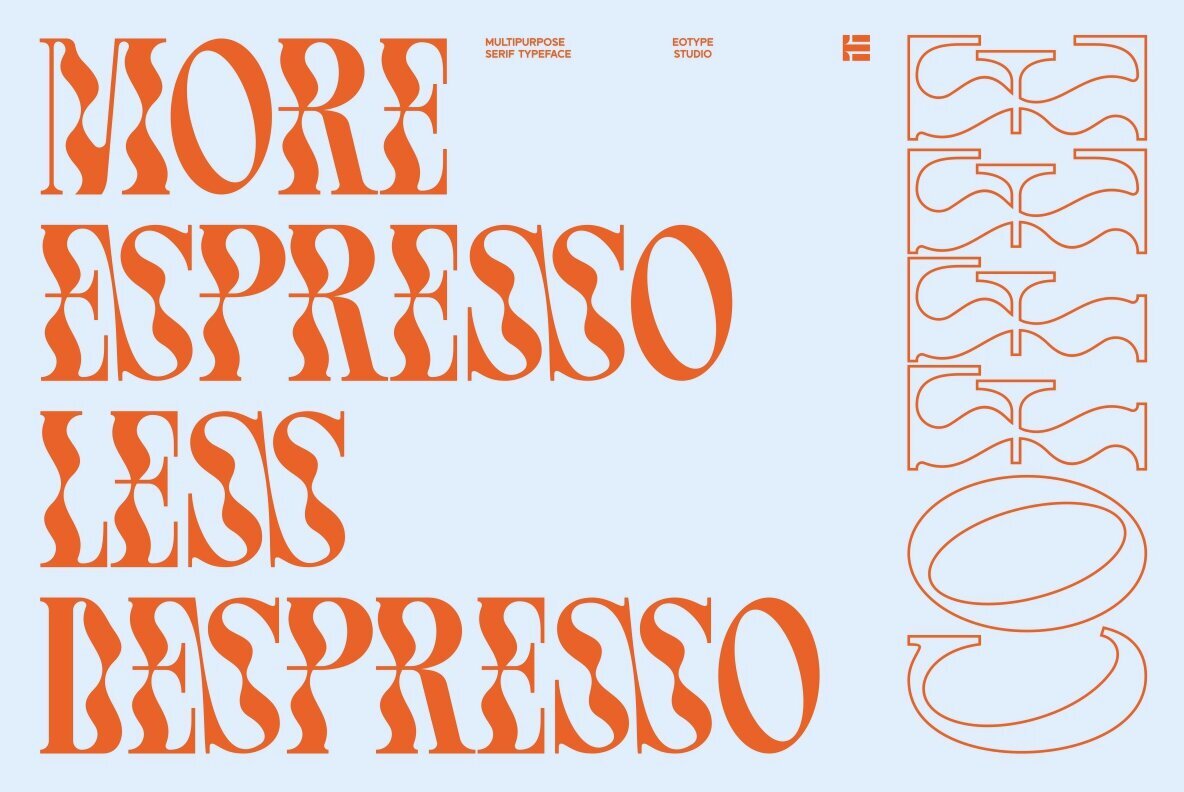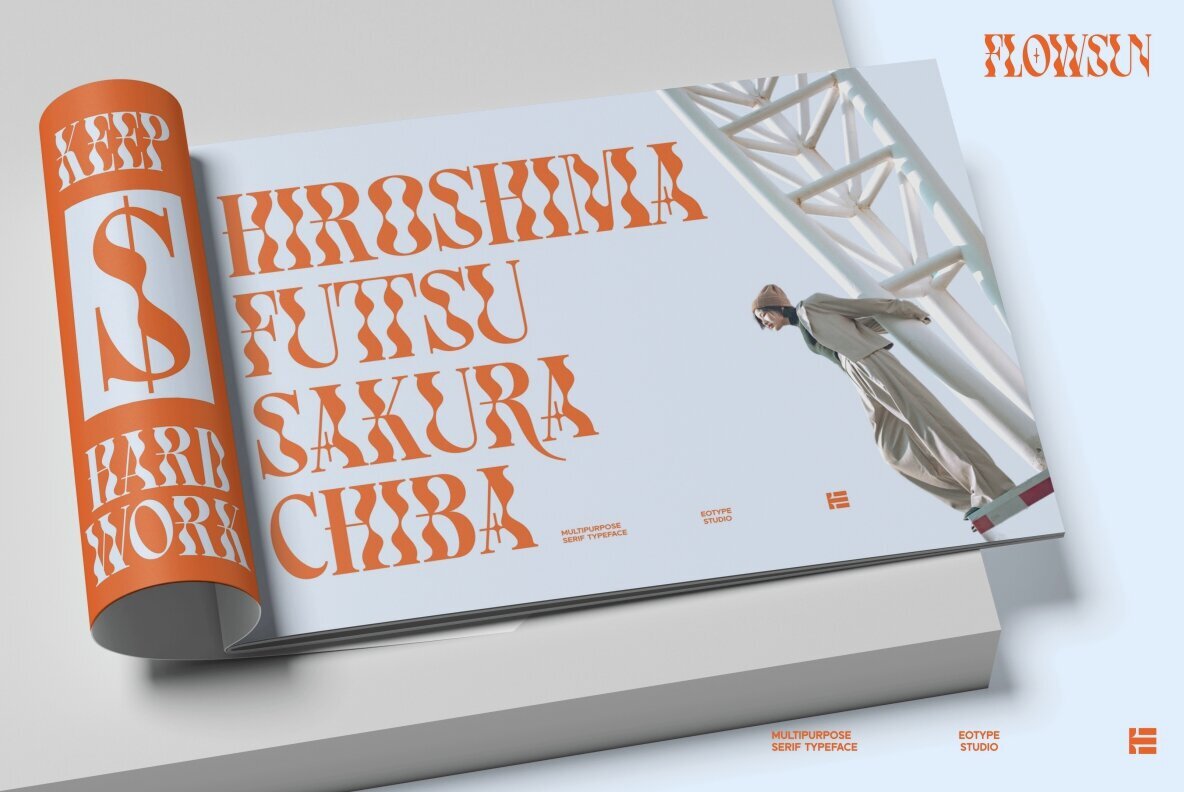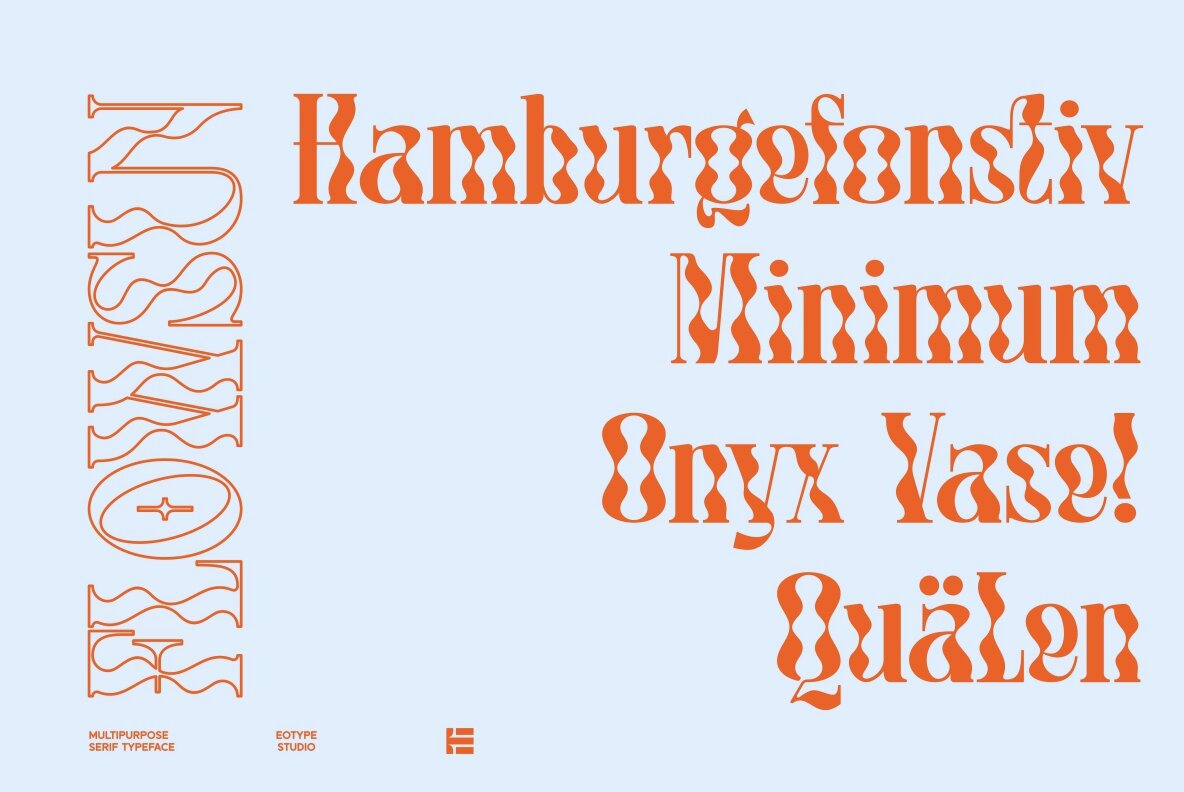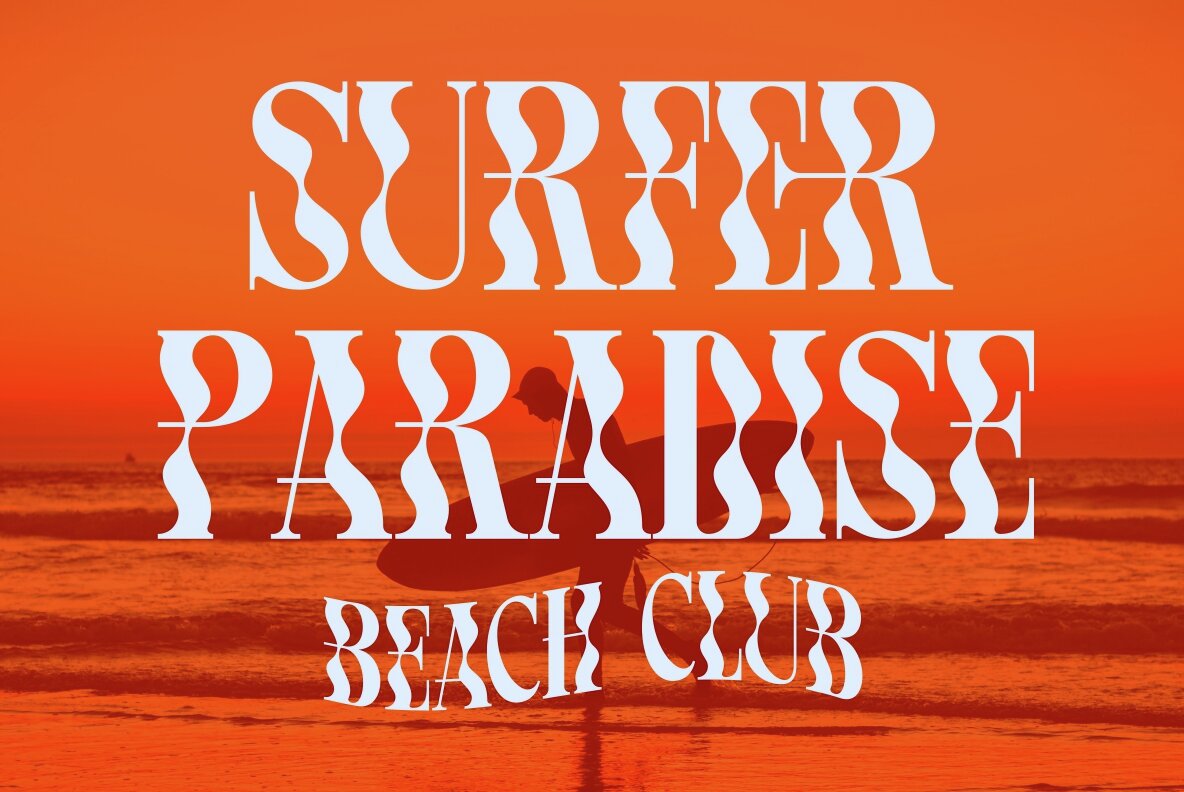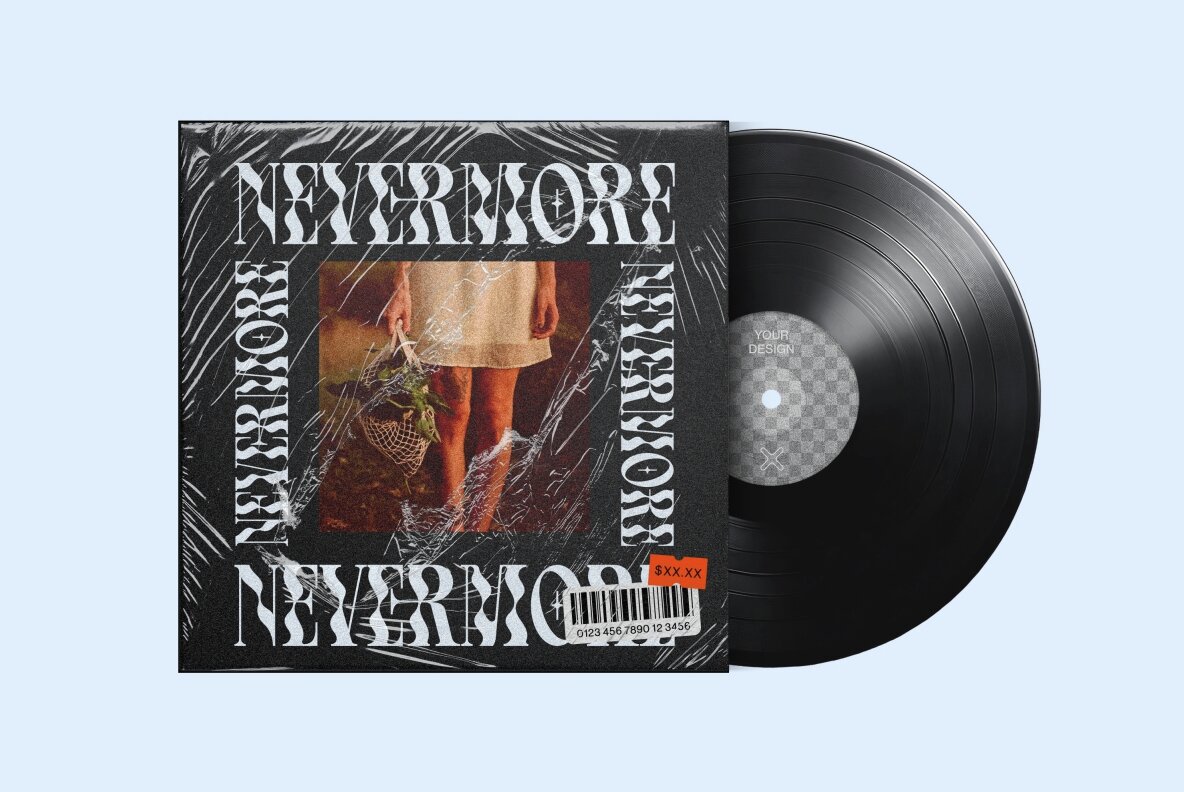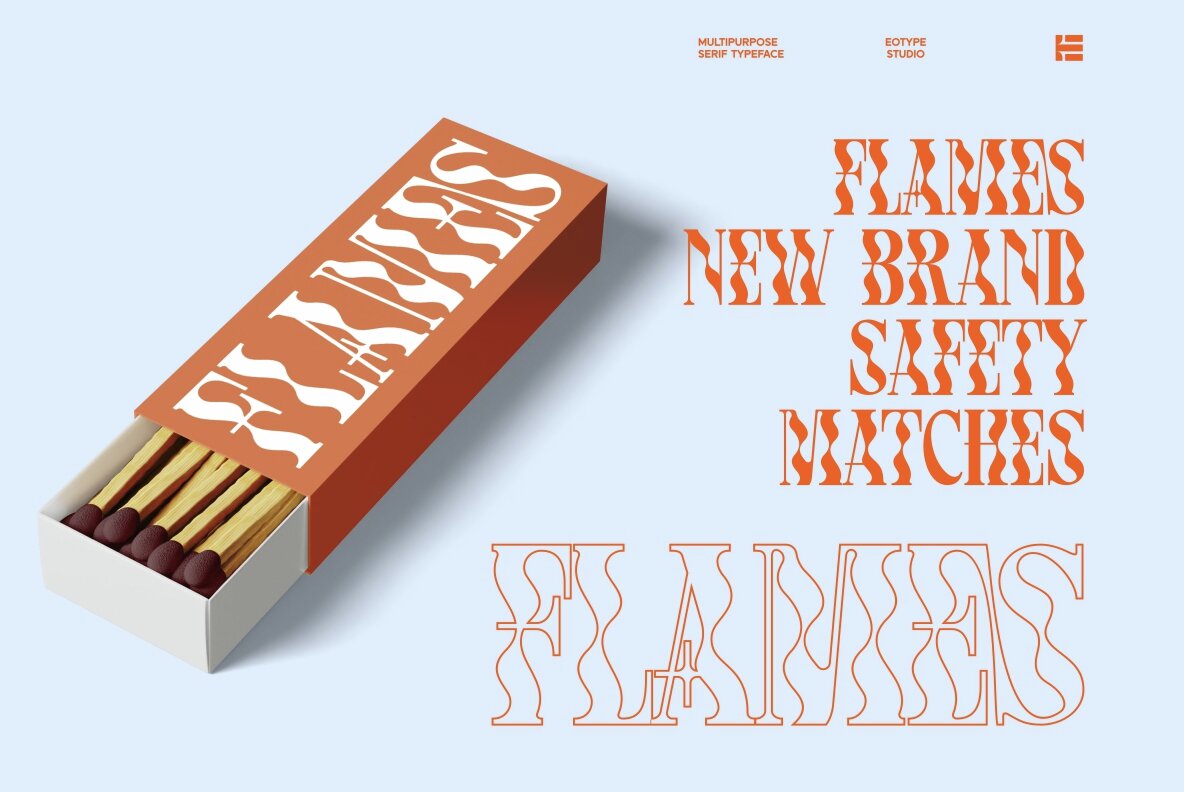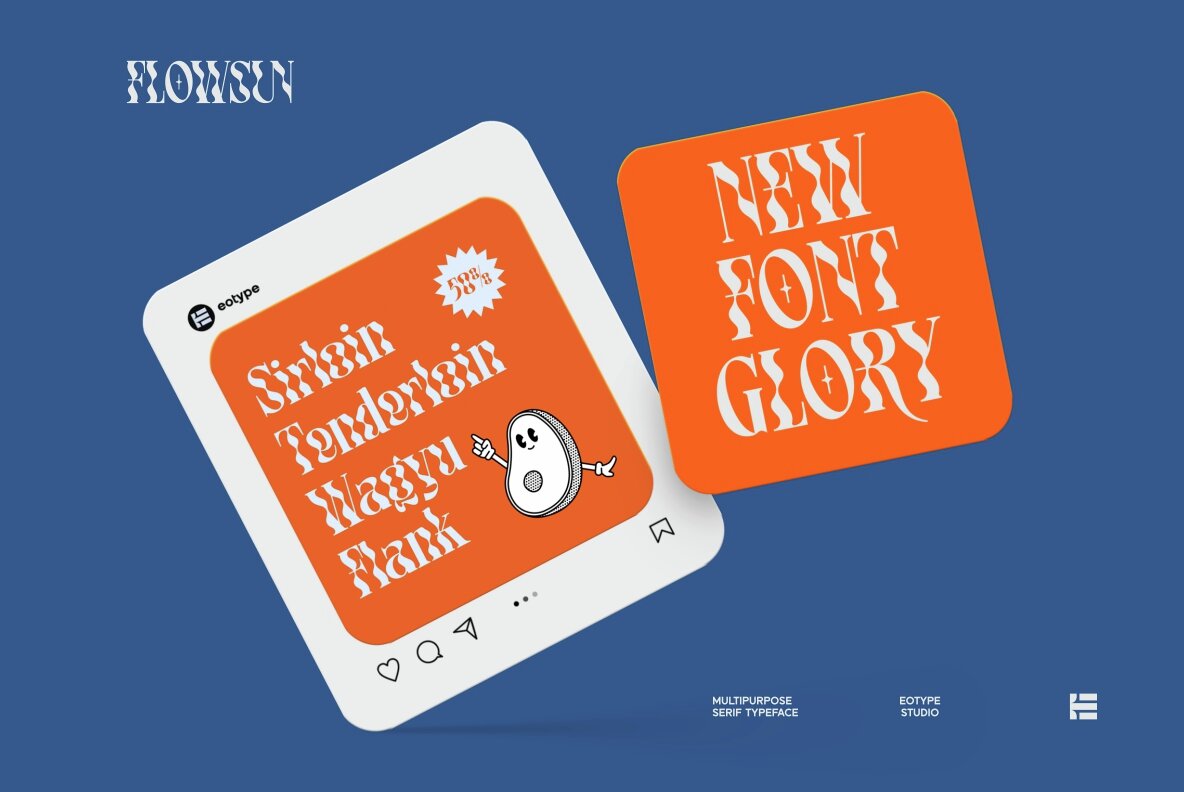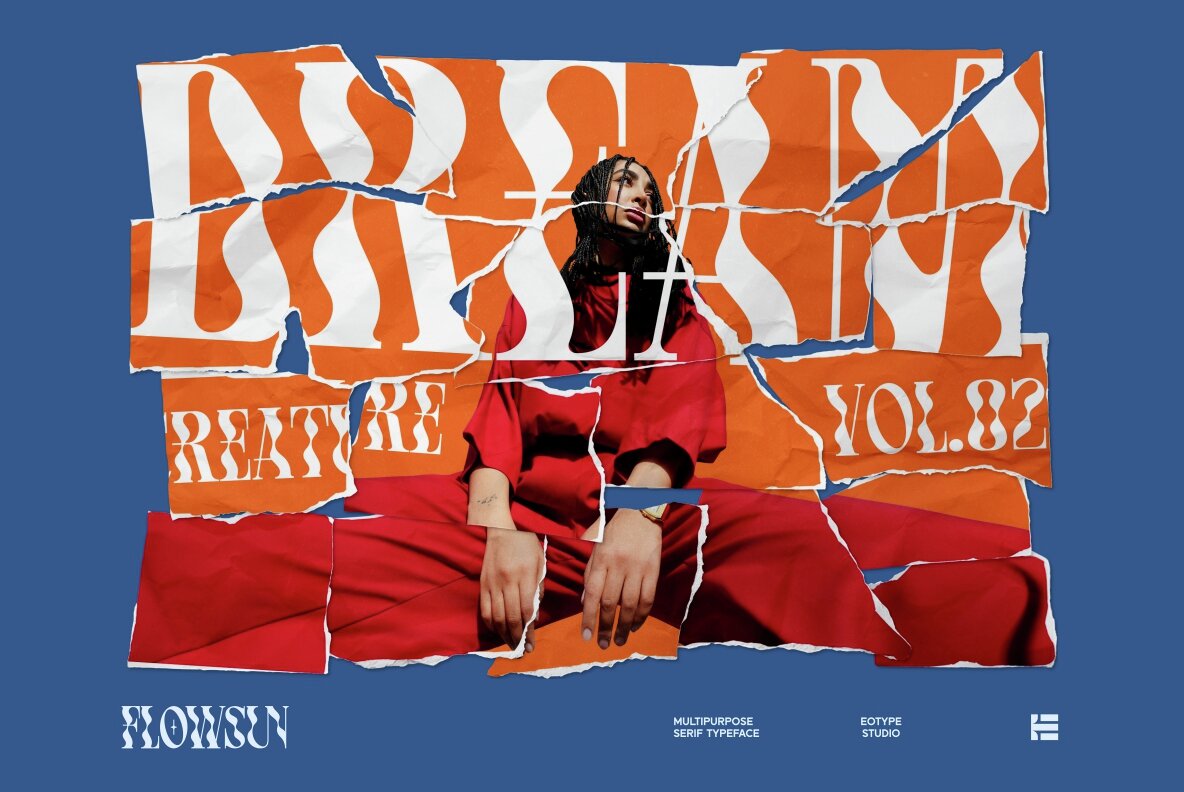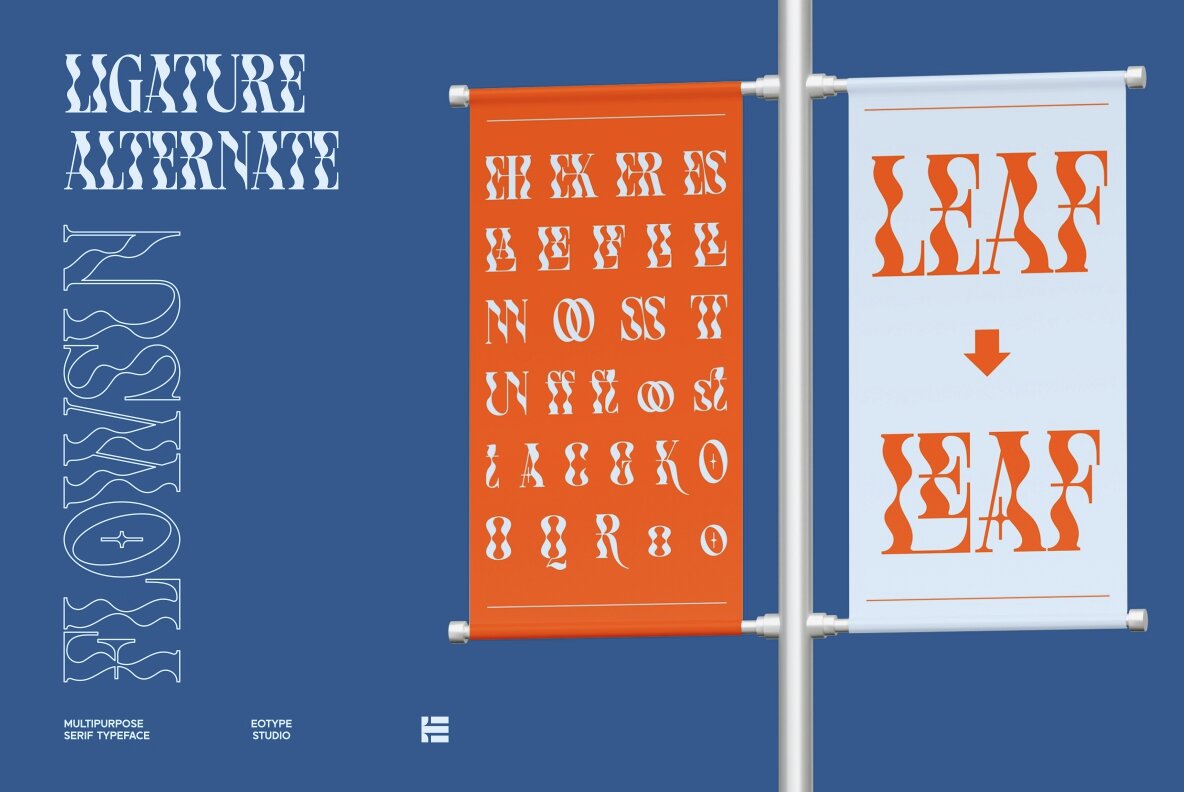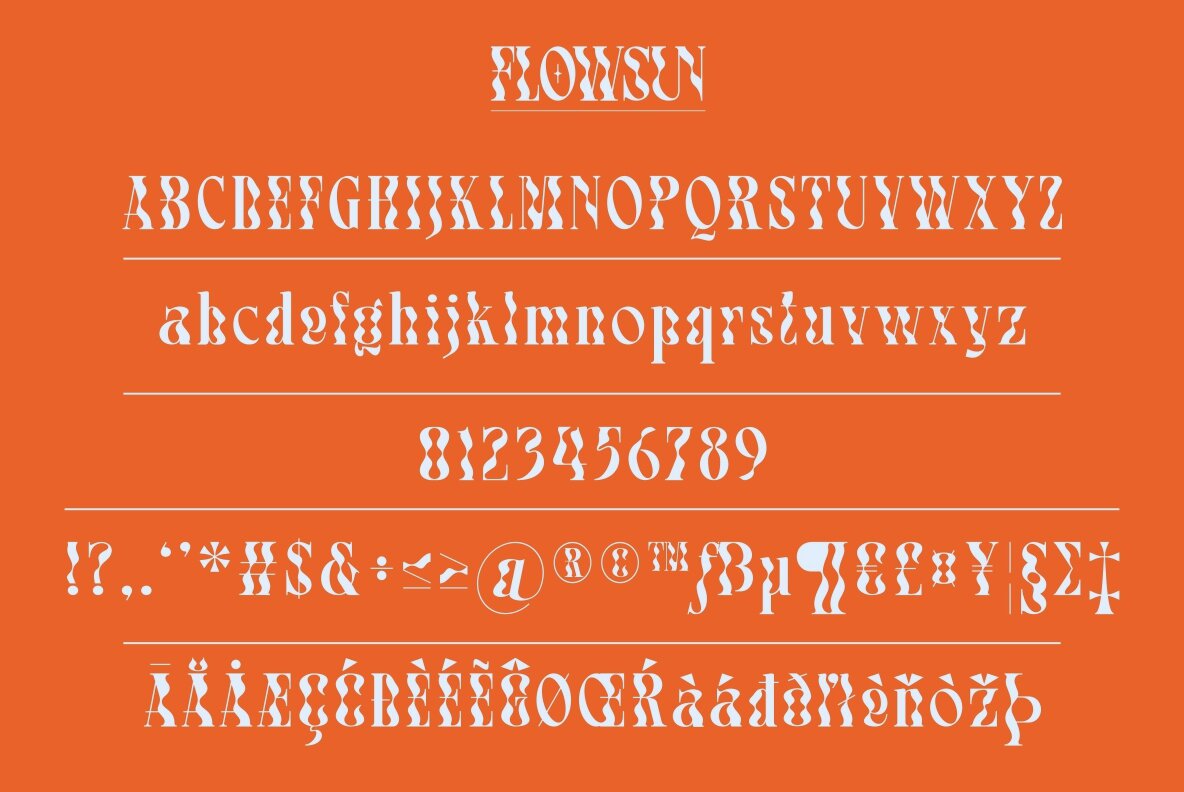
Flowsun Font
This decorative serif font features ornate and intricate letterforms that evoke a vintage and retro aesthetic. Perfect for headlines, display purposes, and book covers, this bold and artistic typeface adds a dramatic and elegant touch to any design project.